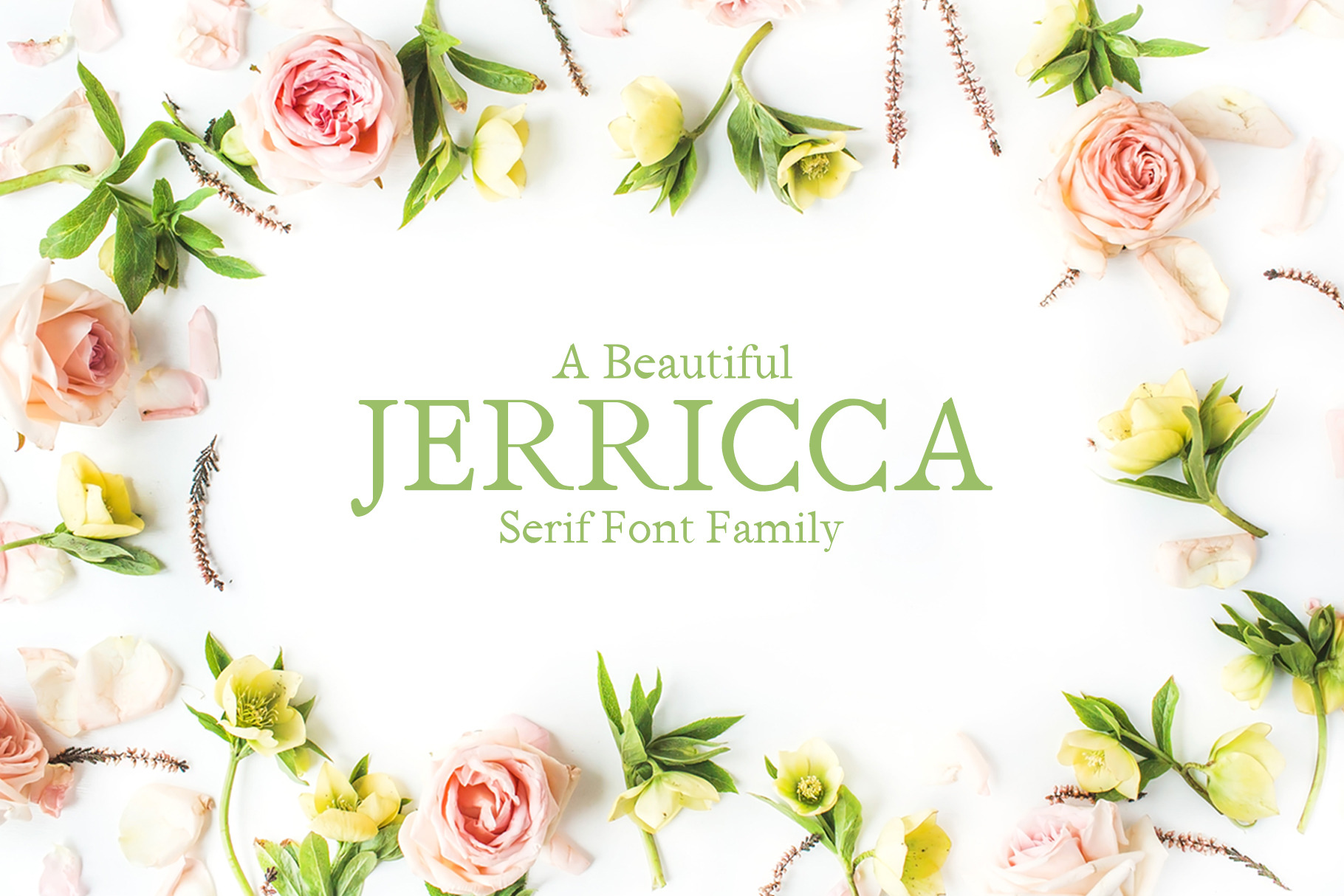
Jerricca Serif 4 Font Family Pack
Jerricca Serif Typeface is a simple serif font family, which contains 4 weights and It features unique and modern serif look and feel. Perfect for gorgeous logos, titles, web layouts and branding. It looks gorgeous in all caps with a wide-set spacing if you want to try a classy look, or beautiful on its own in capital and lowercase letters for something completely timeless.
Included Features:
- Font Weight: Regular, Thin, Light and Distorted
Jerricca Font Features:
- Uppercase Multilingual Letters
- Lowercase Multilingual Letters
- Non English Characters ( Latin Supplement + Latin Extended A)